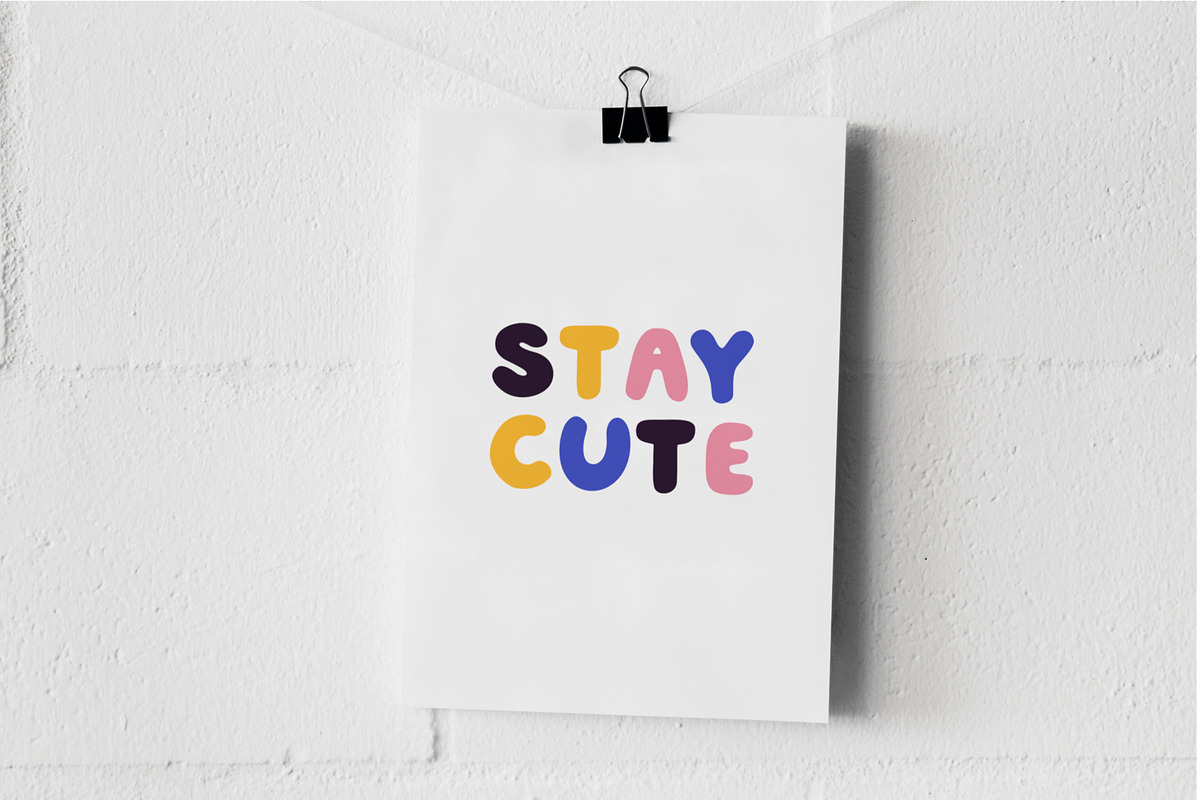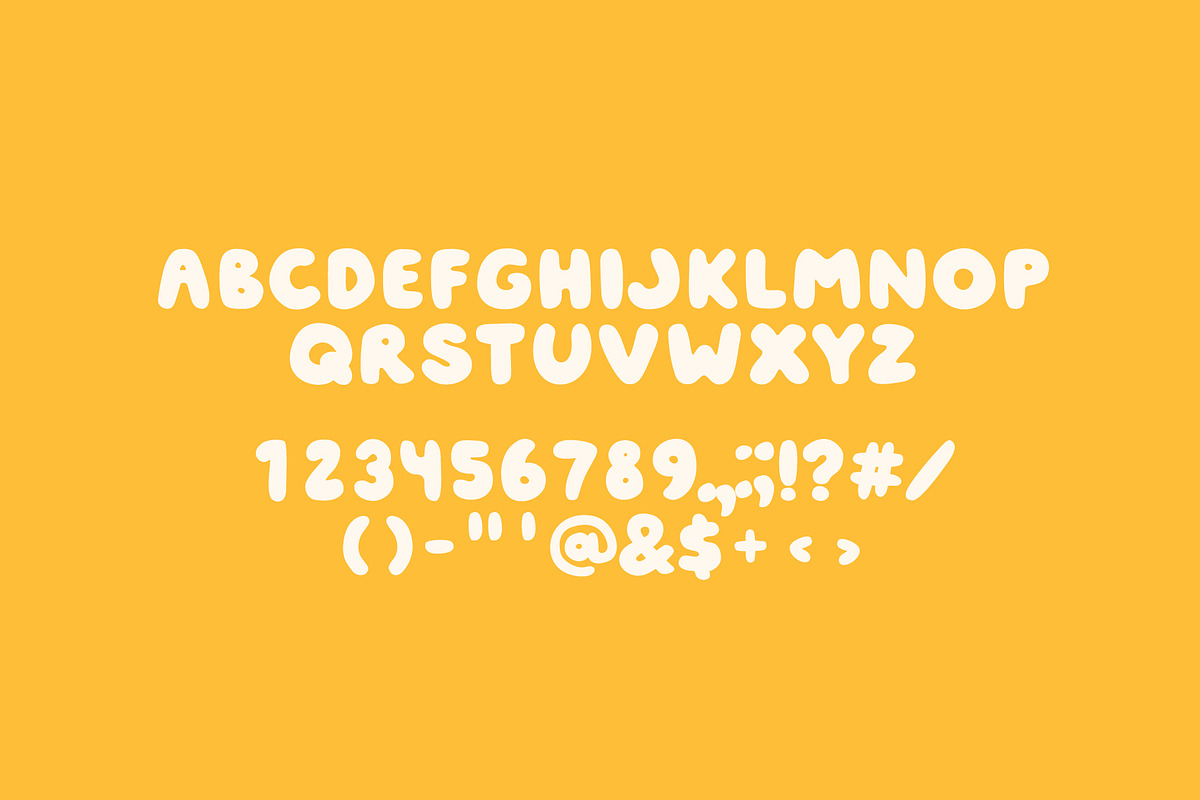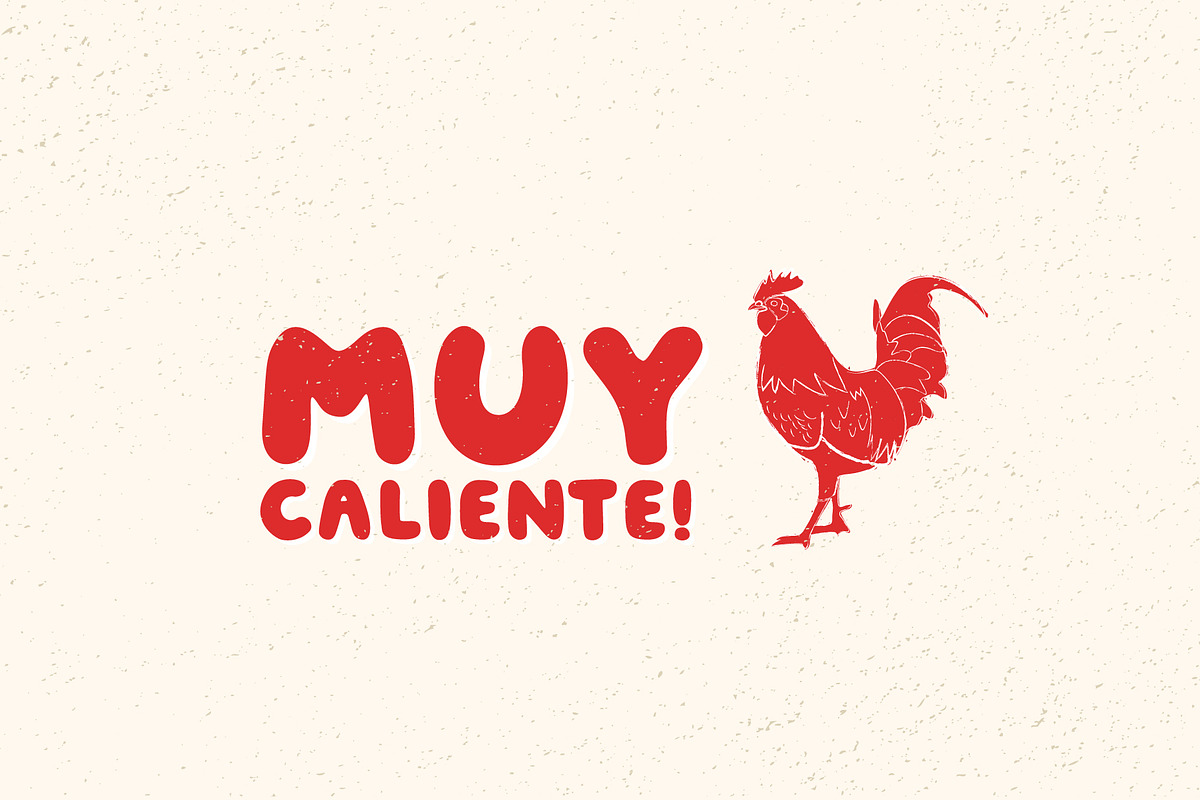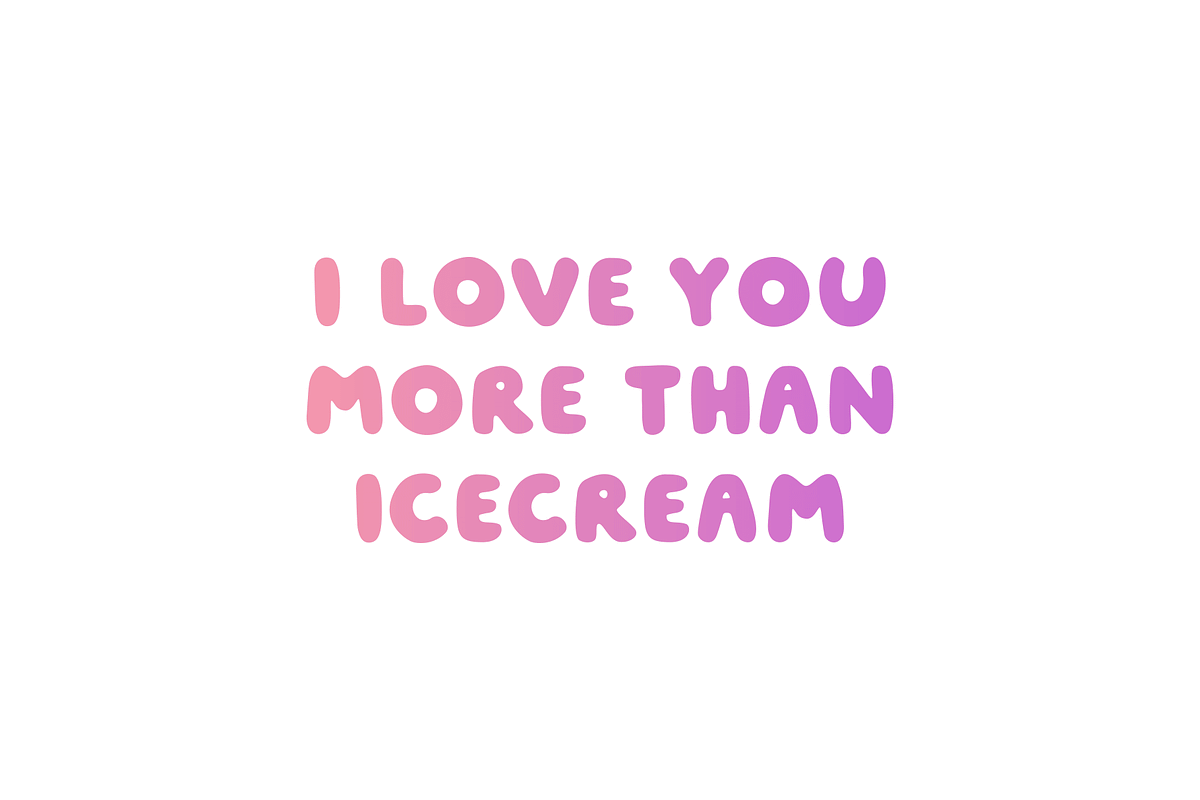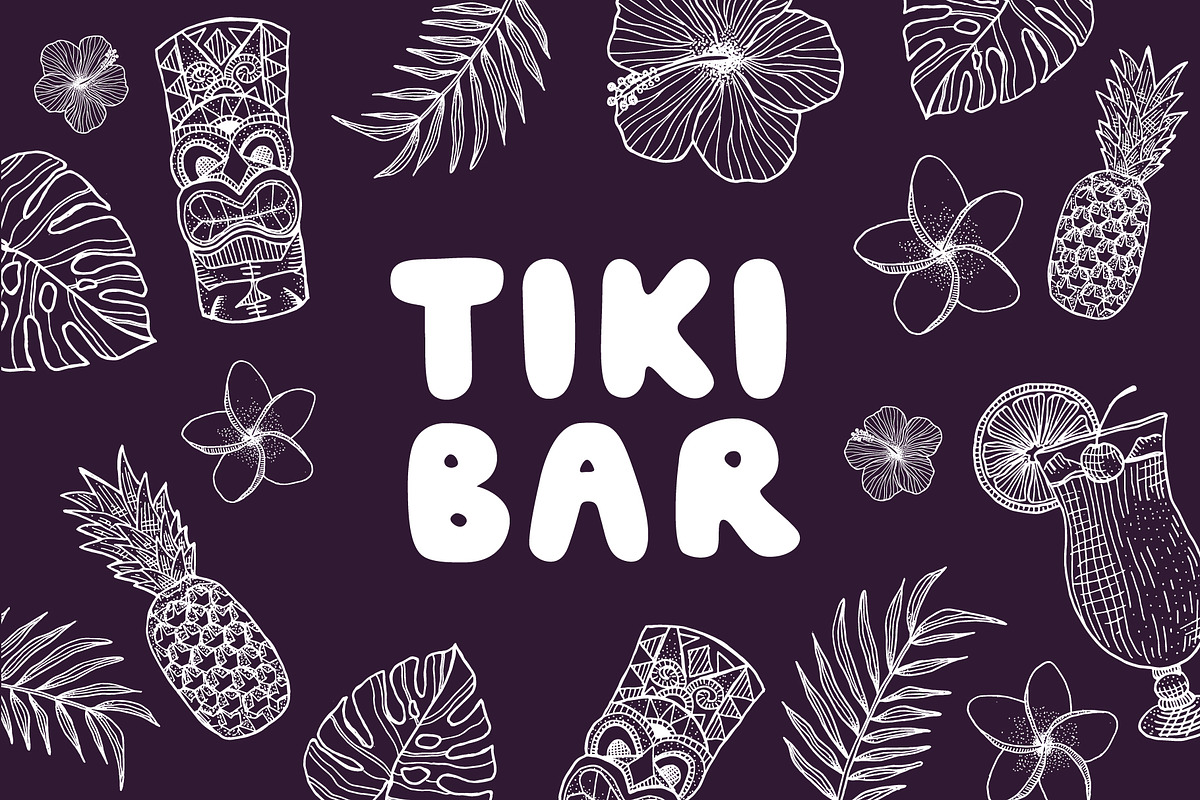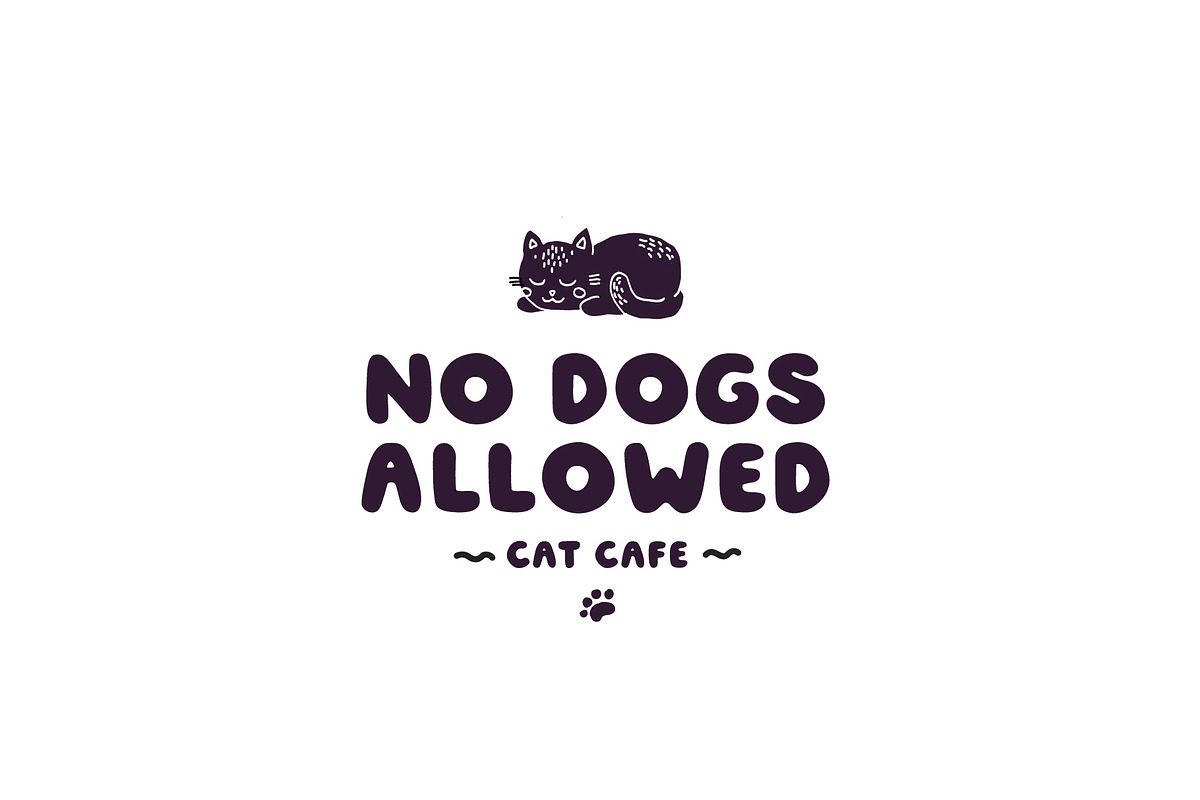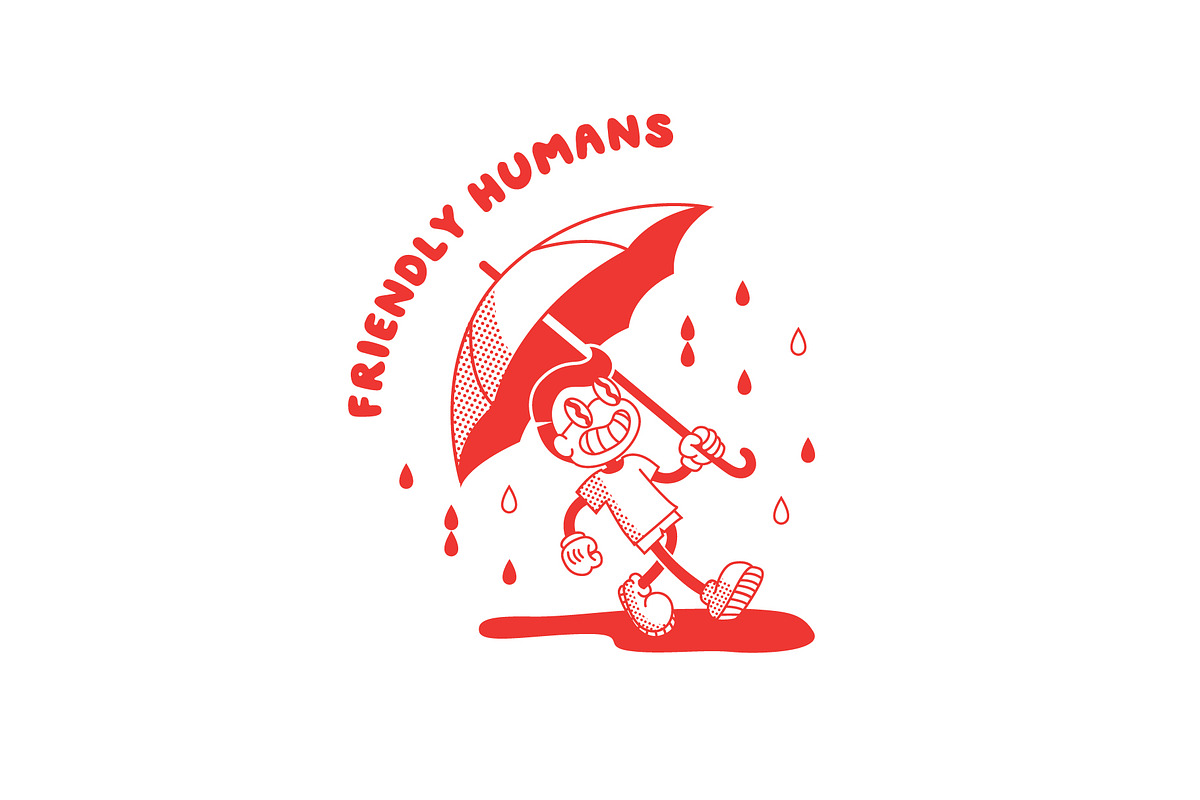
Jouzu | A Friendly Font
Introducing JOUZU - A Friendly Display Font.
Uppercase letters, numbers, & basic punctuation (BONUS: Spanish punctuation & letters as well!)
Use this font wherever you need an easy-to-read fun font that has a laidback and approachable vibe. Amazing for cards, kids books, quotes, promotion, packaging, logos, art and whatever else you can come up with. Try it out in the box above!